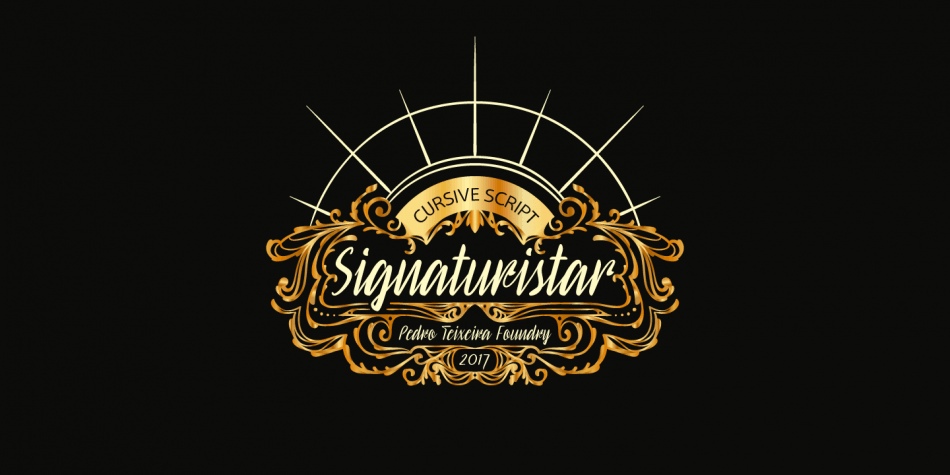
Signaturistar Font
Signaturistar Font is perfect for celebrity endorsement campaigns, luxury personal branding, exclusive autograph collections, high-profile event materials, VIP membership communications, premium signature services, distinguished professional identities, and prestigious personal marketing.
What makes Signaturistar Font exciting is its star-quality character that captures the glamorous elegance and distinctive personality of celebrity signatures through flowing, sophisticated letterforms that seem to shimmer with fame and prestige. The font features graceful script details with star-inspired flourishes that evoke the exclusive world of red carpets and VIP experiences, creating an immediate sense of celebrity status and premium recognition. Its glamorous aesthetic and signature authenticity make it perfect for brands that want to communicate star power, exclusive access, and the kind of prestigious recognition that transforms ordinary experiences into memorable celebrity moments.
Signaturistar Font family includes various glamorous script weights and signature styles, often featuring celebrity-inspired alternates and star decorative elements. The family may include autograph symbols, VIP ornaments, and signature ligatures that enhance the font's star quality aesthetic, providing designers with comprehensive options for creating prestigious typographic compositions that capture the essence of celebrity culture and exclusive recognition.
This glamorously distinctive typeface has gained recognition among luxury brands and celebrity-focused businesses seeking authentic star-quality typography solutions that reflect prestige values and exclusive appeal. Signaturistar Font Free Download provides an excellent opportunity to shine with this celebrity font before investment. The font's character set includes star symbols and celebrity-inspired glyphs that work perfectly for luxury entertainment and VIP service industry applications. Whether you're designing for celebrity brands, exclusive event planning services, or luxury lifestyle companies, Signaturistar Font delivers the star power your project requires. Its versatile nature makes it suitable for various prestigious applications including celebrity endorsements, VIP clubs, luxury entertainment venues, and exclusive lifestyle brands, ensuring your typography choices communicate celebrity status and exclusive recognition while creating memorable brand experiences that celebrate the glamorous appeal of fame and the transformative power of star quality through its distinctively glamorous and authentically celebrity-inspired visual character.